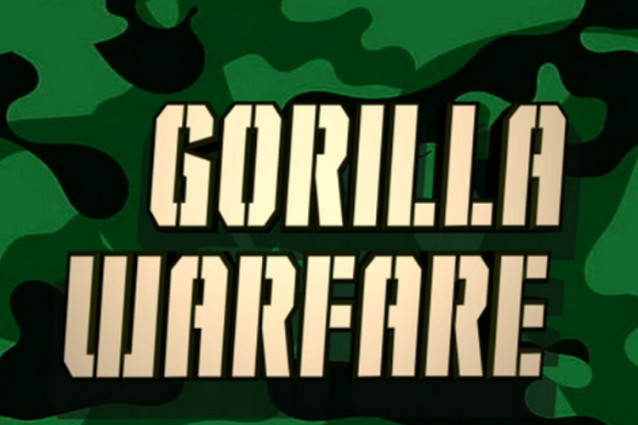
Gorilla Warfare Font
Gorilla Warfare Font is a simple and modern display font suitable for quotes, logos, headings, titles, and many more. Use it on any of your creative projects, and your designs will become outstanding!